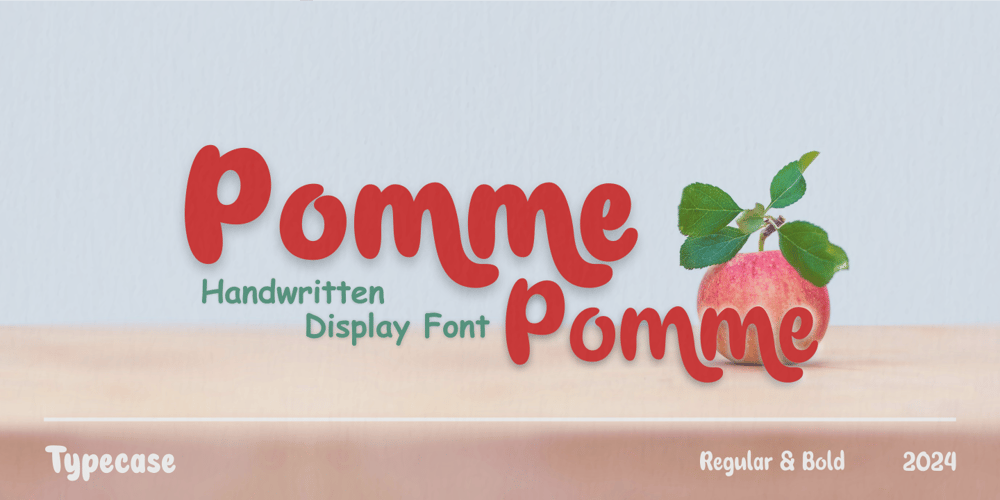
Pomme pomme
Pomme pomme font
Pomme pomme Font Family was designed by Aldi Wangsadipa, ALDI RAMDAN and published by TypeCase.std. Pomme pomme contains 2 styles and family package options. Pomme is a display typeface with a puffy, bold look. By combining it with rounded corners and natural shapes, Pomme has a unique and charming look. You can use the alternate glyphs to create a different look for your designs.The Pomme font is ideal for branding or packaging projects that require a modern and cheerful feel.